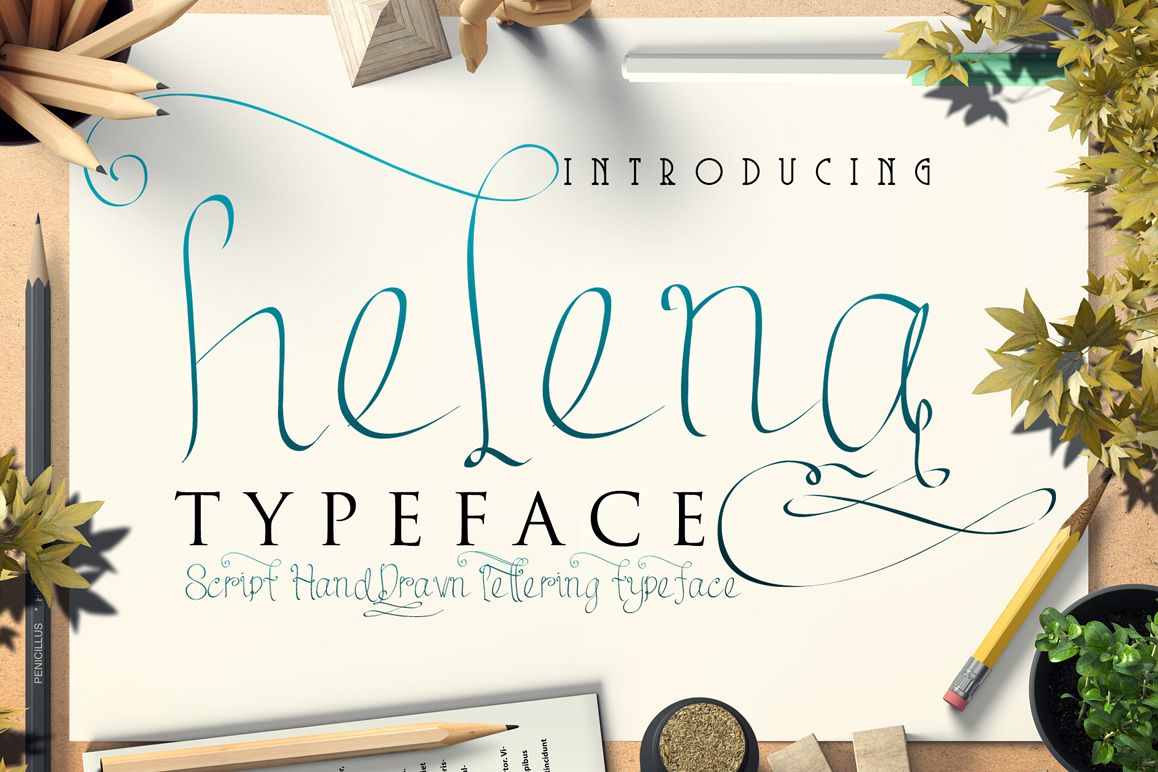
helena script handdrawn typeface
helena elegant script typeface inspired from
handdrawn script handlettering, elegant and aesthetic.
5. Uppercase,lowercase,numeral,punctuation,and Symbol
6. Stylistic alternates (uppercase and lowercase)
7. ss01 (ABCDEFKL)
8. ss02 (A-Z, a-z)
9. standart ligature (FF, TT, LL,SS, ff, tt, ss)